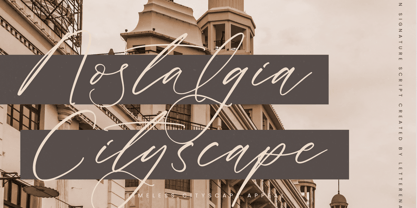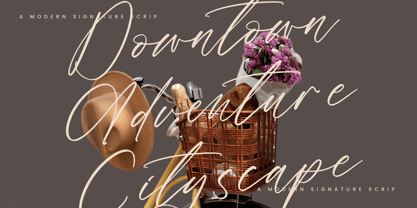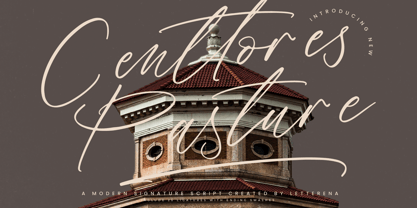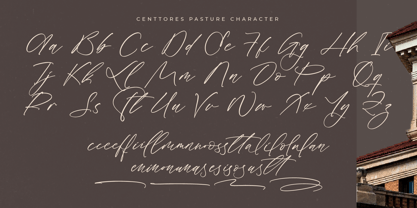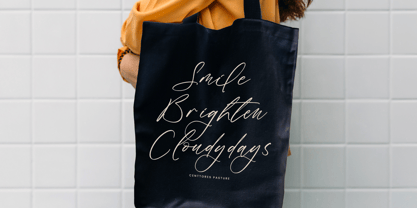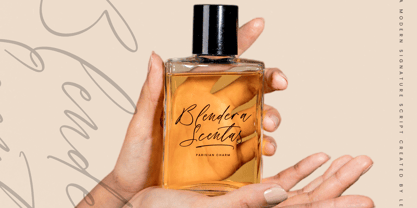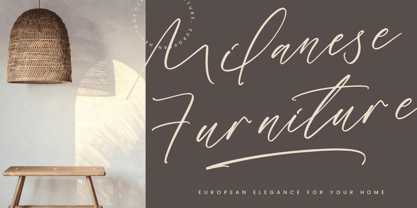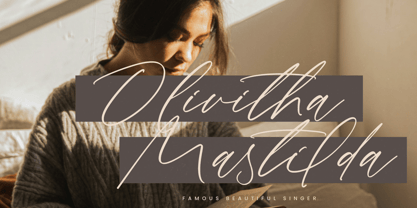
Centtores Pasture
The Centtores Pasture Font Family was designed by Heru Utama Putra and published by Letterena Studios. Centtores Pasture contains 2 styles and family package options. More about this family
Centtores Pasture is a stylish and modern handwritten font with a flowing and elegant design. It looks like natural handwriting, making it perfect for adding a personal touch to invitations, logos, quotes, and more.